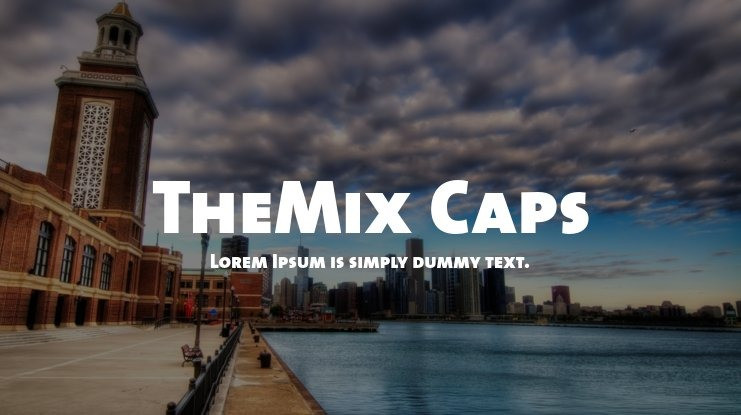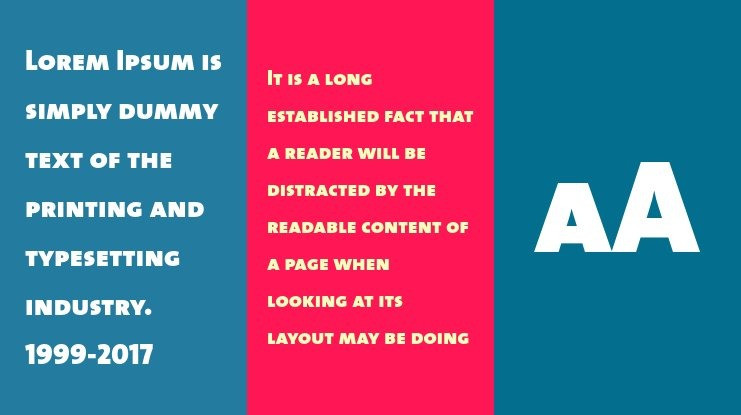
TheMix Caps Sans Serif Font, Its optimum legibility, clean, and geometric look is perfect branding, brochures, greeting cards, quotes, posters, stationary, design titles, blog headers, and much more.
TheMix Caps Font